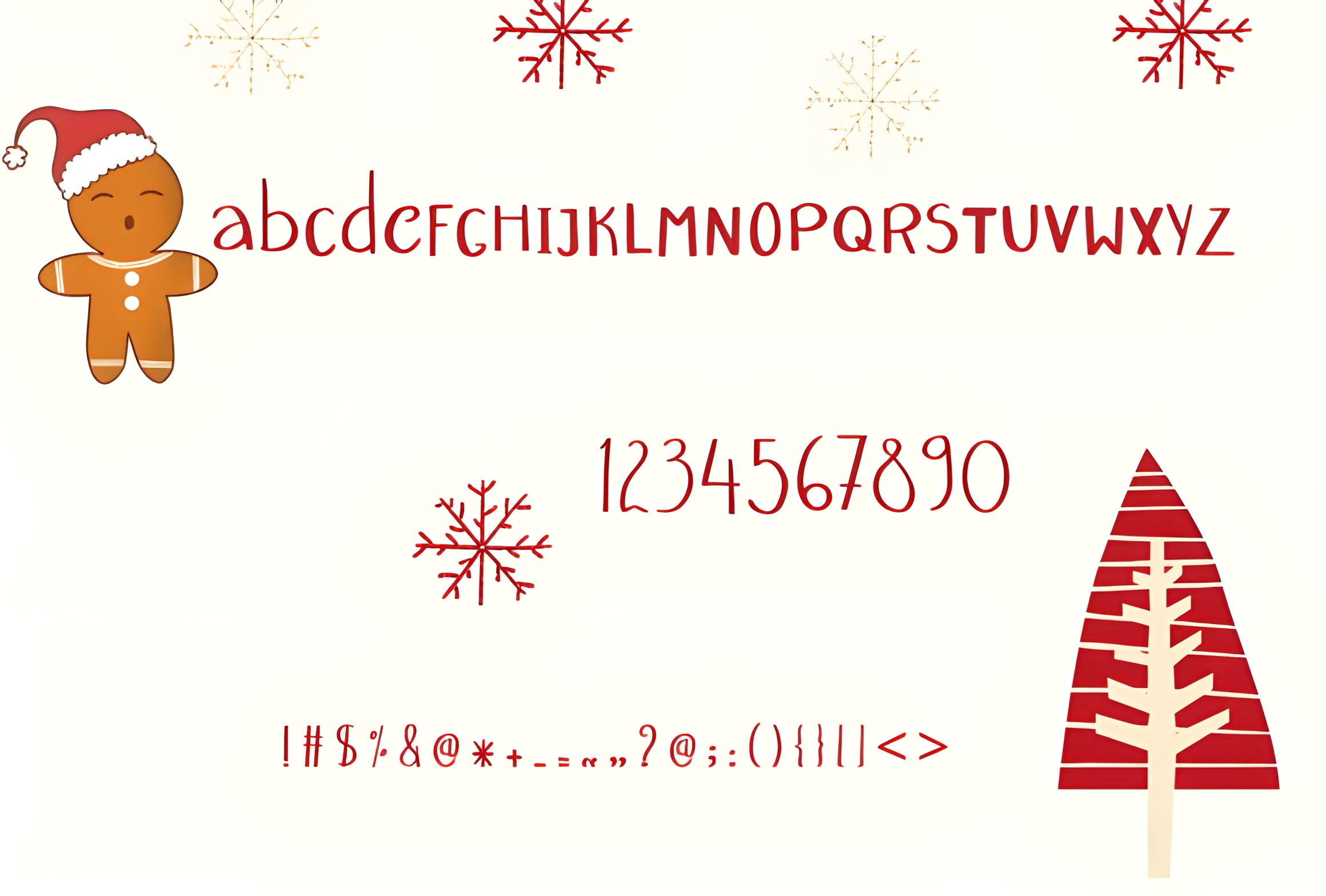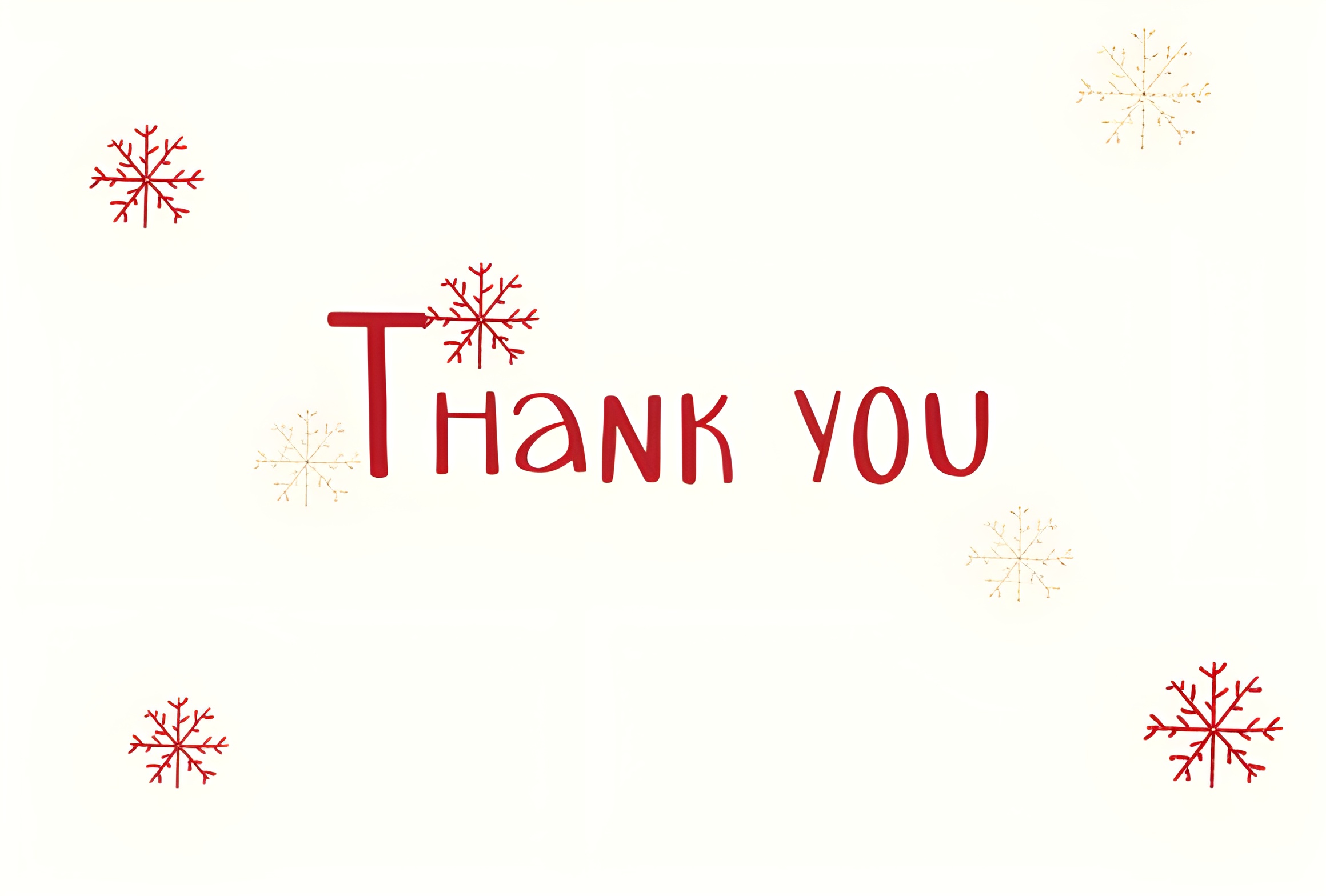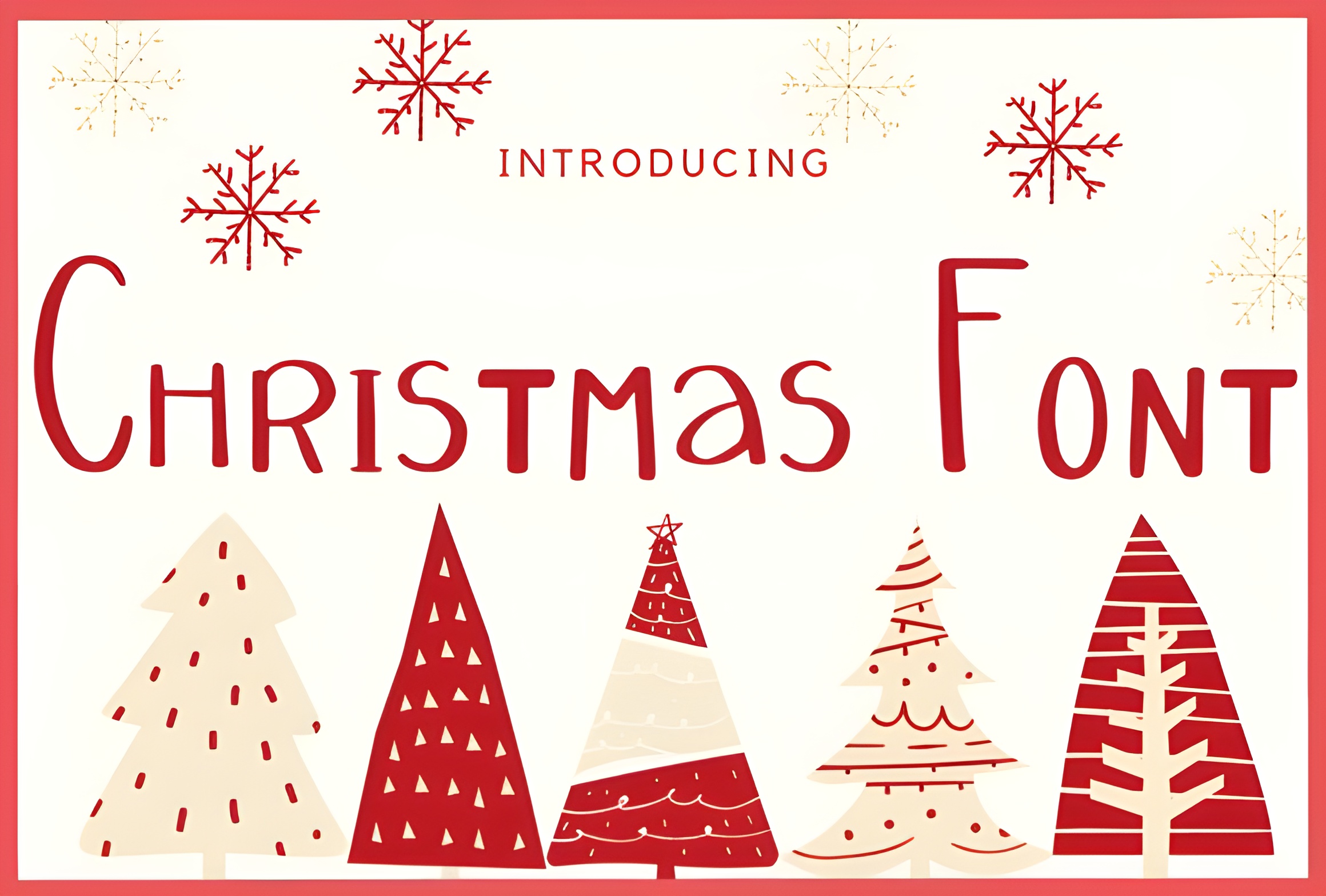
Festive Christmas Handwritten Font - Holiday Typeface
Fun casual Christmas font perfect for holiday crafts, merchandise, cards & digital designs. Use on t-shirts, onesies, decorations & more!